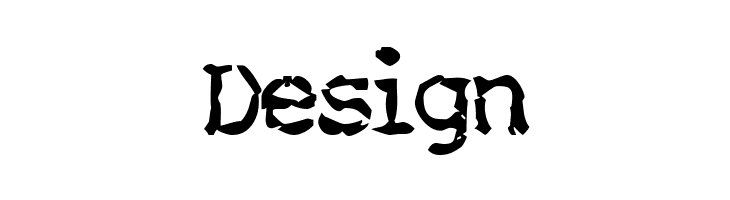
Mrs. Monster Condensed Italic Font
- Font: Mrs. Monster Condensed Italic
- Weight: Condensed Italic
( Font by Berry Brooks - Fontocide )
A bold, distressed font with jagged edges and a hand-drawn appearance.